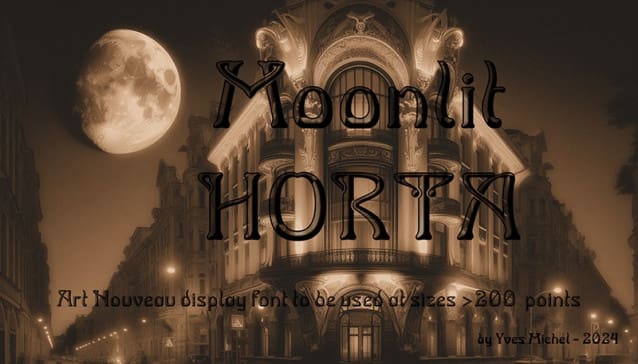
Moonlit Horta Font
The period around 1900 produced the Impressionists in painting and Art Nouveau in architecture and graphic design. I have always admired the Arnold Boecklin typeface, which is a remarkable illustration of this era.
So I wanted to create a font in this spirit, without falling into copying or imitating it too easily. I named it Victor Horta, in tribute to our great Belgian architect, a disciple of Eugène Viollet-le-Duc, a precursor of Art Nouveau. From it
I derived the present font “au clair de lune”
The period around 1900 produced the Impressionists in painting and Art Nouveau in architecture and graphic design. I have always admired the Arnold Boecklin typeface, which is a remarkable illustration of this era.
So I wanted to create a font in this spirit, without falling into copying or imitating it too easily. I named it Victor Horta, in tribute to our great Belgian architect, a disciple of Eugène Viollet-le-Duc, a precursor of Art Nouveau. The present derived font is “in the moonlight”.